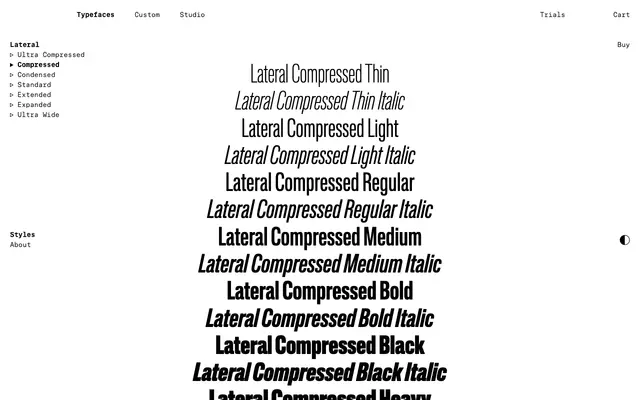
Lateral Compressed
The Compressed width of Lateral: a tight neo-grotesque cut with straight-sided rounds, in seven weights with italics.
Lateral Compressed is one of the seven widths in the Lateral superfamily. At this point along the width axis the flat segments at curve extremes become clearly visible, giving the cut its straight-sided rounds and a brutalist edge. Seven weights from Thin to Black with matching italics suit display work where horizontal economy matters, and the cut connects to Ultra Compressed and Condensed on the width axis and to the Standard, Extended, Expanded and Ultra Wide widths through the variable font.
The Compressed width within the seven-width Lateral system; flat curve segments yield straight-sided rounds at compressed widths.